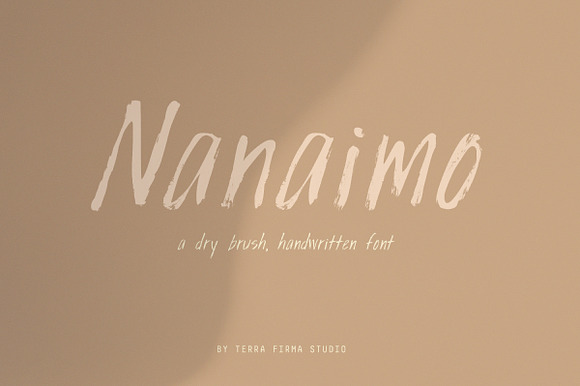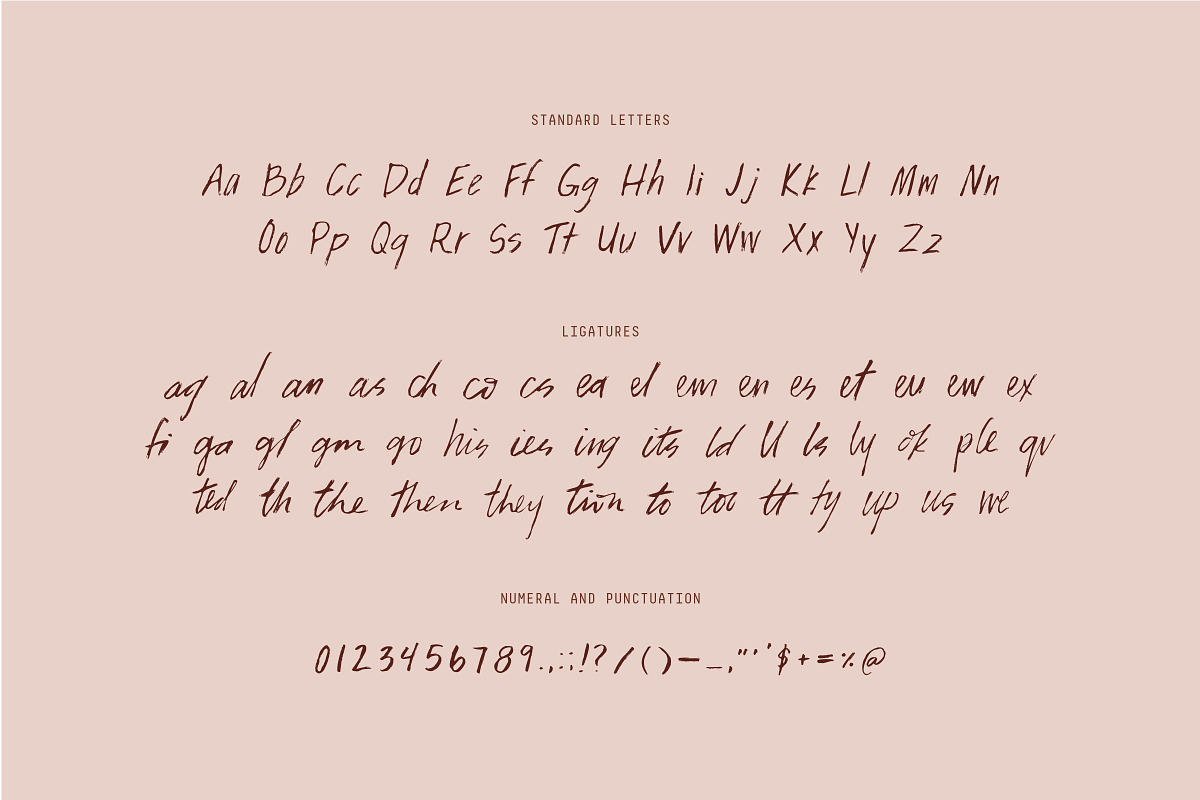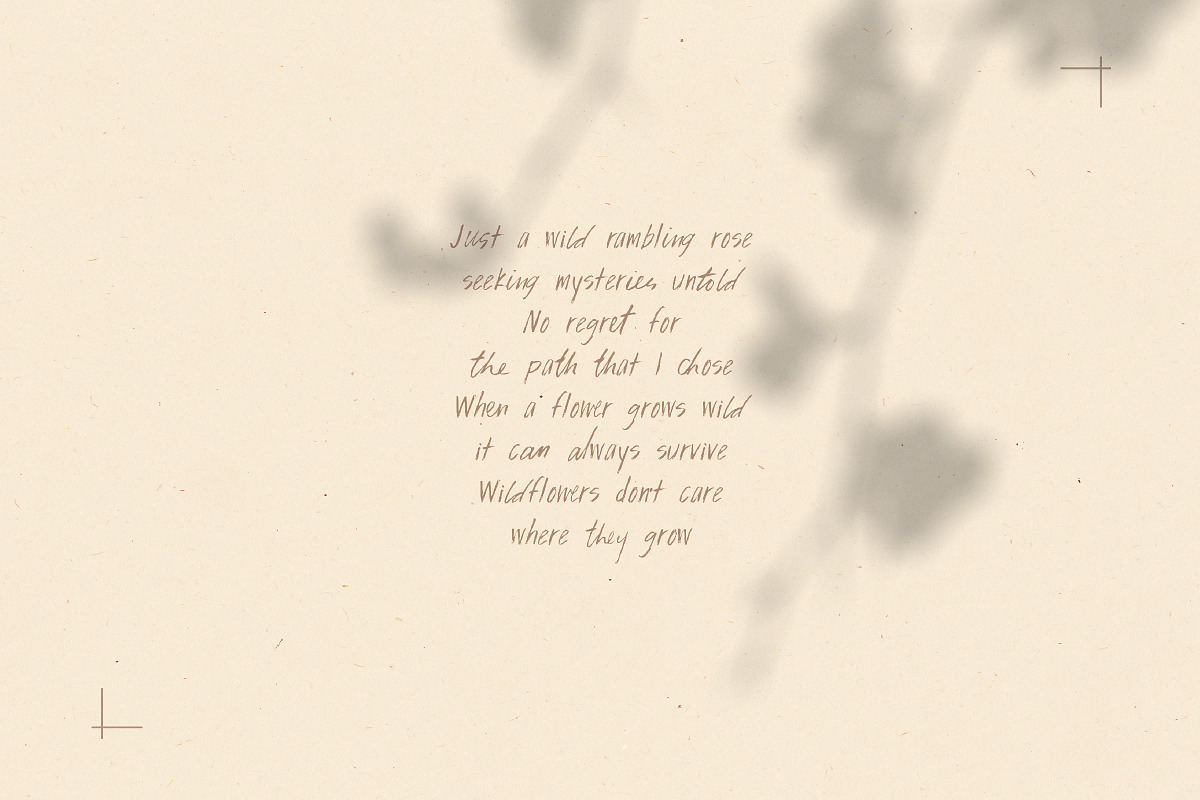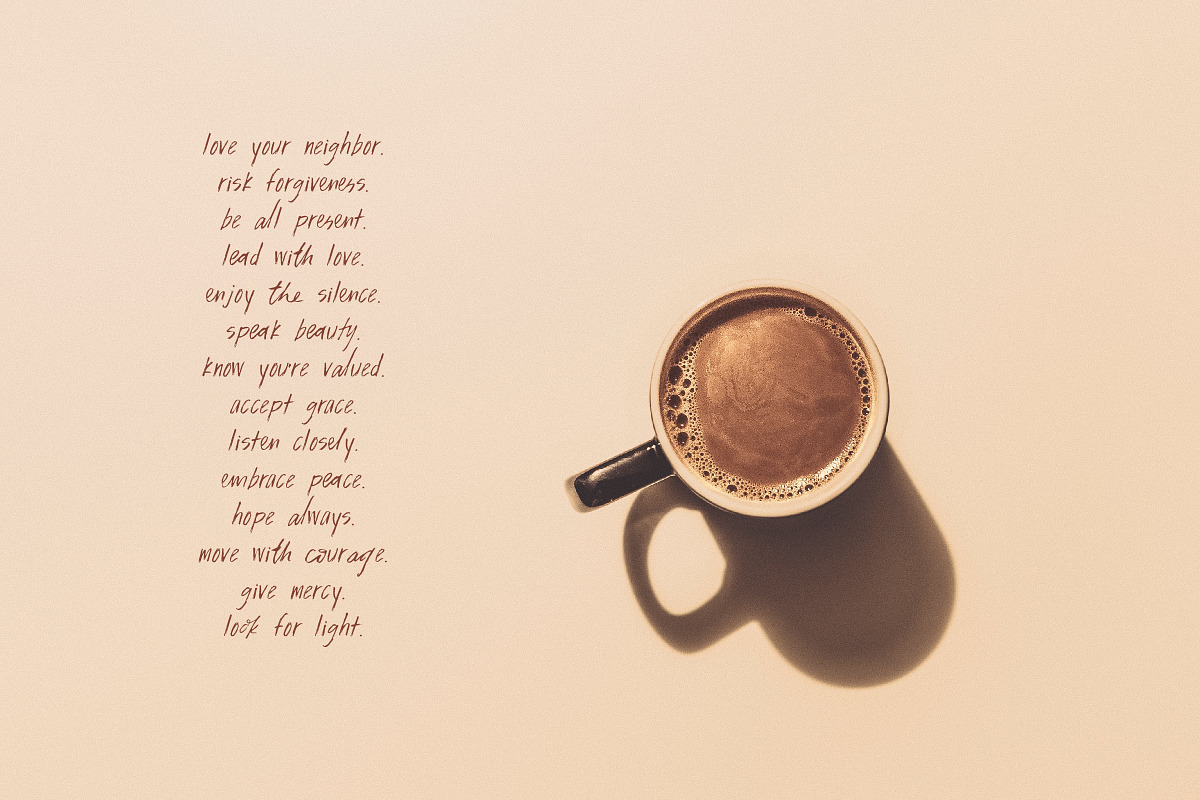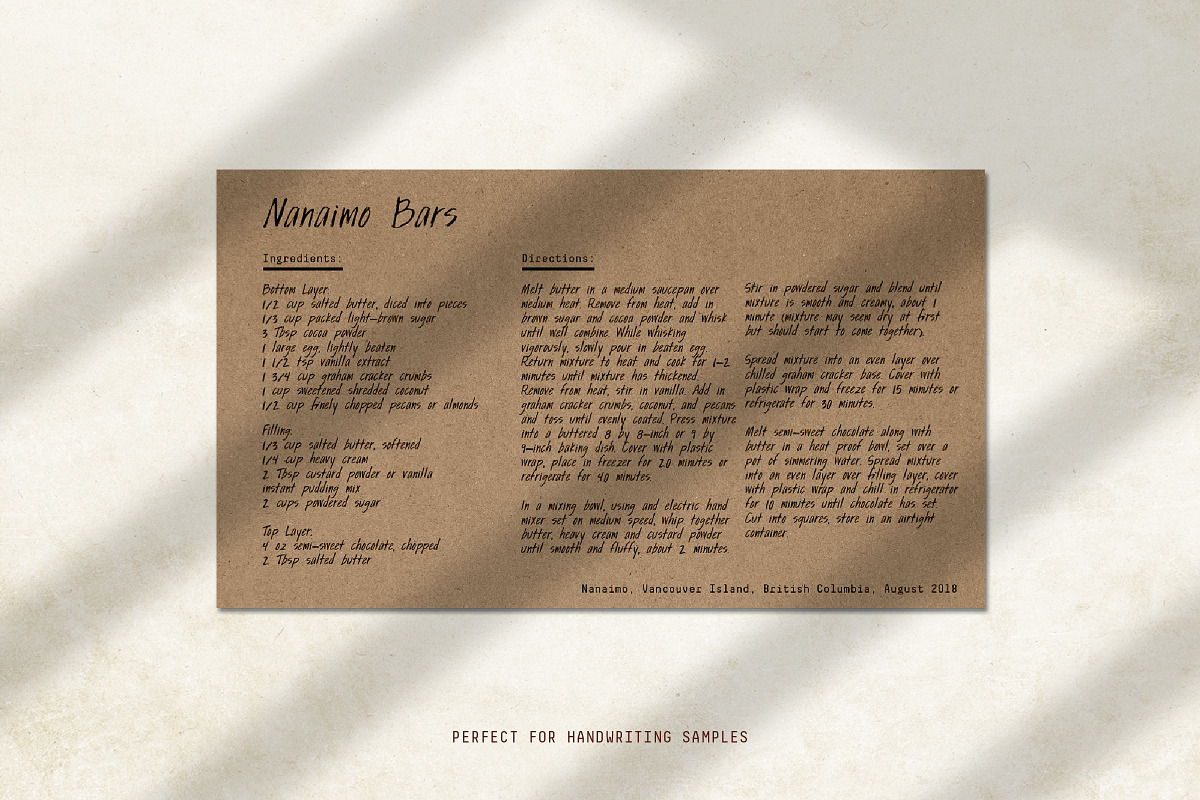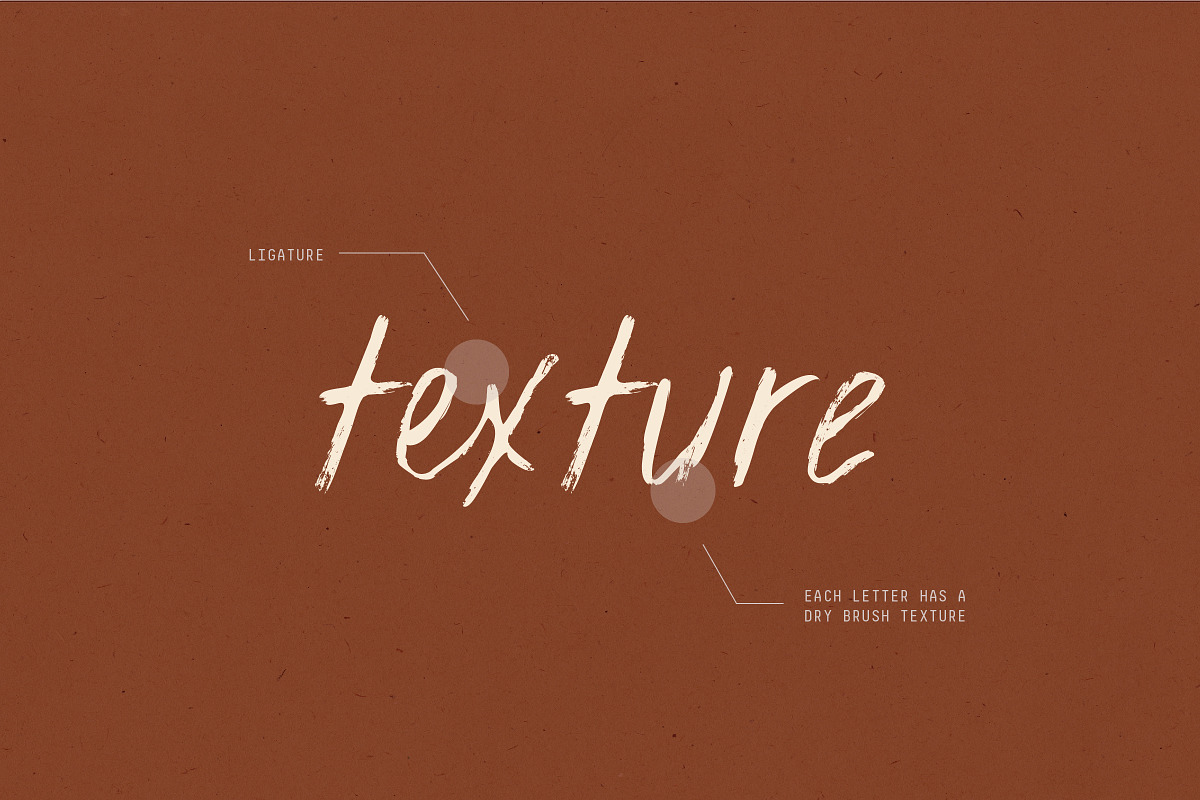
Nanaimo - Textured Handwritten Font
Create an organic, personal vibe with this textured, handwritten font. Its natural feel gives the impression that you wrote a letter to a friend or left a note on the fridge.
- Nanaimo includes uppercase characters, lowercase characters, 45 ligatures, and all numbers and punctuation.